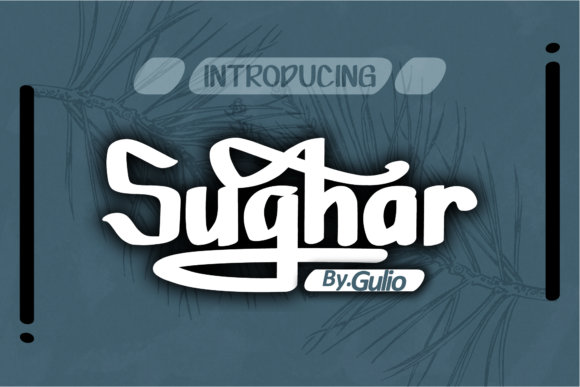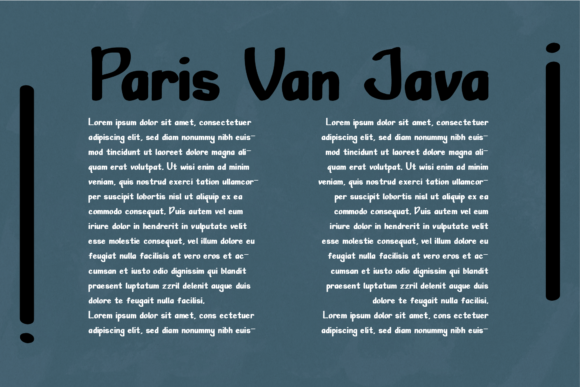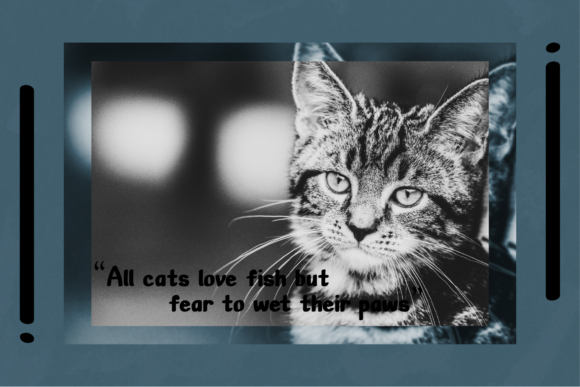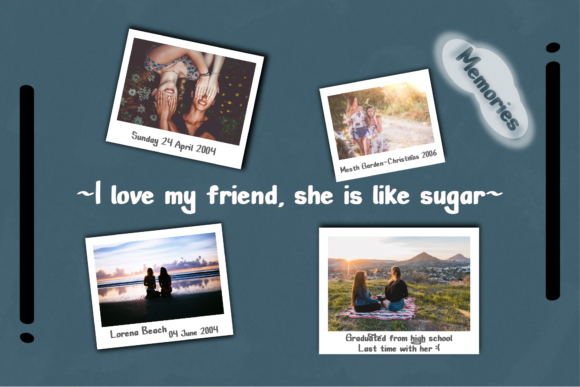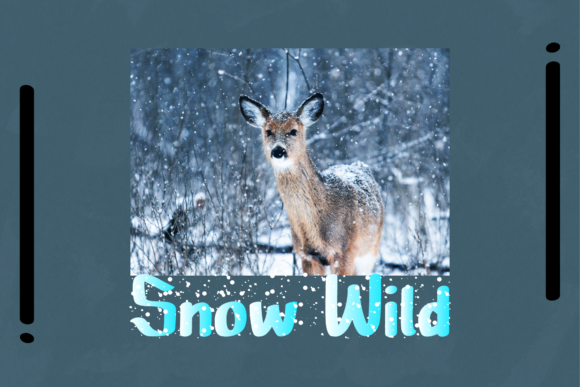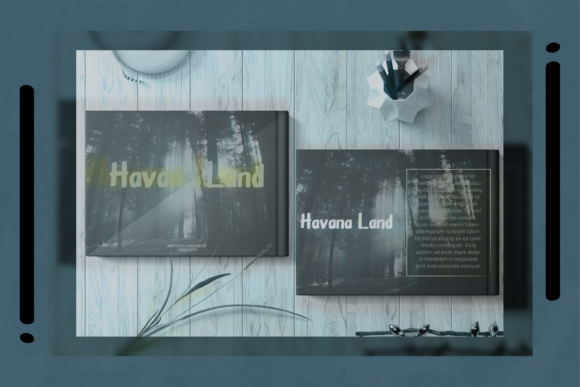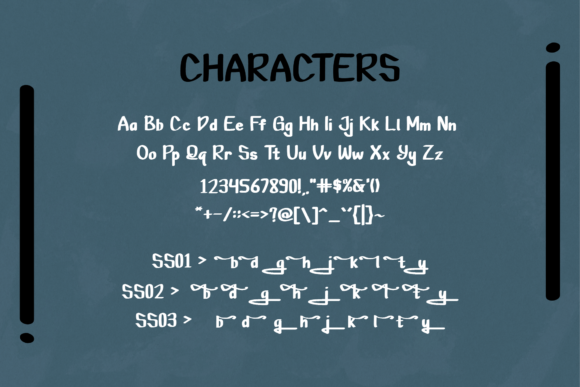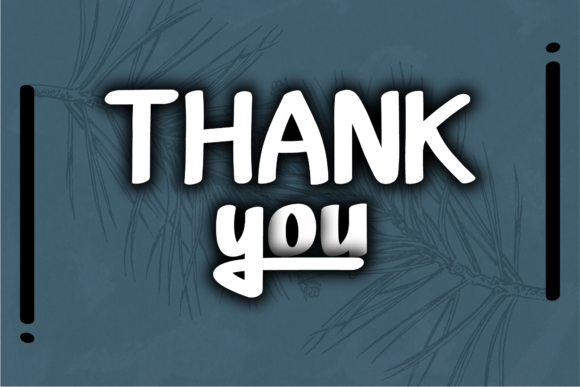
HomeScript FontsSughar Font Script Fonts Sughar Font FacebookXPinterestWhatsApp Sughar Font Poster 2 Sughar Font Poster 3 Sughar Font Poster 4 Sughar Font Poster 5 Sughar Font Poster 6 Sughar Font Poster 7 Sughar Font Poster 8 Sughar Font Poster 9 About Sughar Font Sughar is a state-of-the-art handwritten font with an exclusive feel. Get inspired by its modern flair. DOWNLOAD ON CREATIVE FABRICAThis font is sold and delivered by Creative Fabrica. Font Canyon may earn a commission if you buy through this link. People also explored Bolivar Shore Font Crop Circles Font Grindelwald Font Flattery Font Cyber Tech Font The Lord Music Font Beautiful Scenery Font Big Shine Font Asyila Duo Font 346 0 TagsSughar Font Previous articleOutistyle FontNext articleBonrin Font LEAVE A REPLY Cancel reply Comment: Please enter your comment! Name:* Please enter your name here Email:* You have entered an incorrect email address! Please enter your email address here Website: Save my name, email, and website in this browser for the next time I comment. Personal Use Free Fuixg Personal Use Free Read more about this font Green Farmhouse Personal Use Free Read more about this font Dealerplate California Personal Use Free Read more about this font Waverly Date Personal Use Free Read more about this font BLOG Free Fonts Risk: Why Free Fonts Can Be Dangerous for Designers Free Fonts Risk: Why Free Fonts Can Be Dangerous for Designers Using free fonts is a common practice in web and graphic design. However, the... To increase your work productivity, choose the most readable fonts. Fonts That Capture the Spirit of New York City Free vs Paid Fonts: Why Investing in Premium Fonts Is Worth It